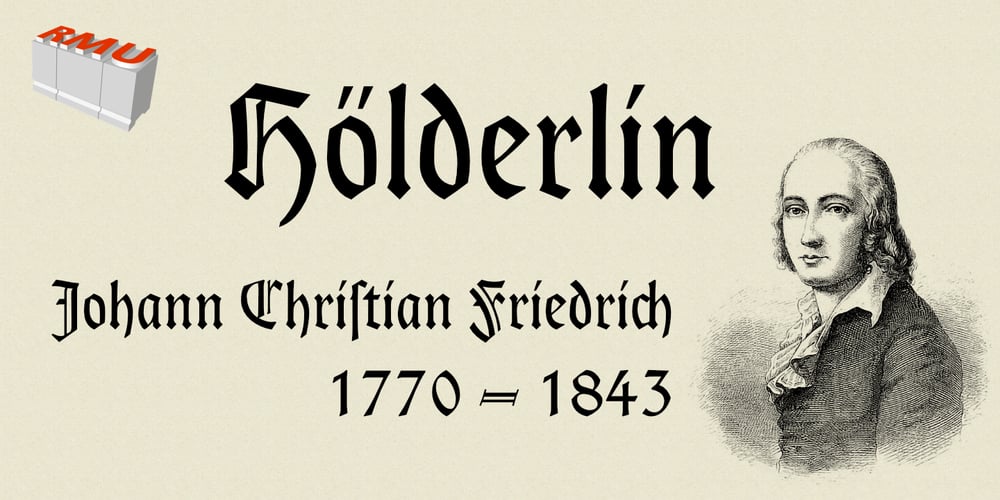
Hoelderlin
Hoelderlin font
Hoelderlin Font Family was designed by Ralph M. Unger and published by RMU. Hoelderlin contains 1 styles and family package options. In 1938 the Frankfurt-based foundry Ludwig & Mayer released Eugen Weiss’ beautiful fraktur ‚Hoelderlin‘. Carefully redrawn and redesigned, this digitized version is intended to add another gem to the enthusiasts’ treasure drove of blackletter types. The font contains the historical long s which can be reached by the OpenType feature historical forms or by typing the integral sign [ ∫ ].